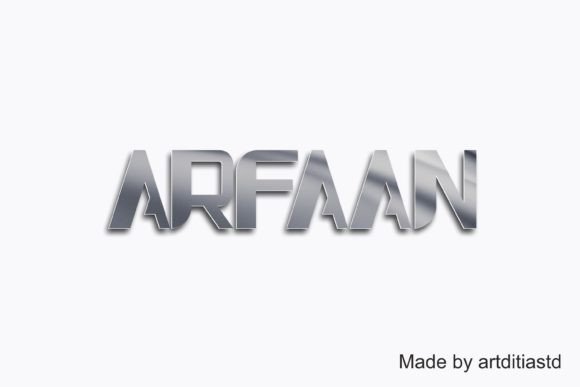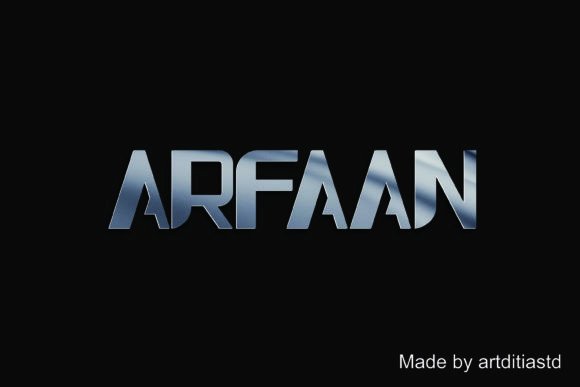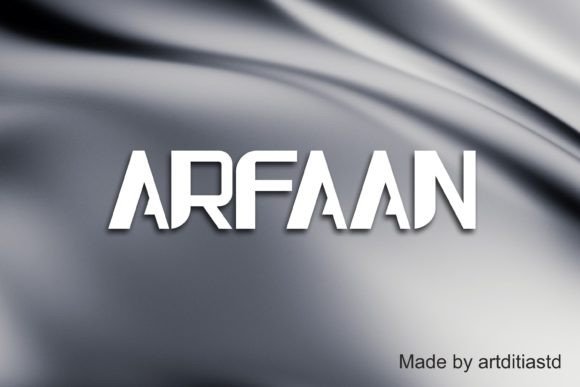
Introducing Arfaan Font: The Ultimate Display Font for Friendly Designs
Are you tired of using the same old fonts for your designs? Look no further! Arfaan Font is here to revolutionize your creative projects with its cute and fun all-caps display style. This font is perfect for designers, crafters, and anyone looking to add a touch of friendliness to their work.
What Makes Arfaan Font Special?
Arfaan Font is designed to convey impeccable friendliness, making it ideal for a wide range of projects. Whether you’re working on crafts, digital design, presentations, or creating greeting cards, this font is sure to become your go-to choice. Its all-caps display style gives it a playful and approachable feel that’s hard to resist.
Arfaan Font’s versatility is one of its standout features. Here are some design projects where this font truly shines:
- Crafts: Add a personal touch to your handmade crafts, such as DIY cards, scrapbooking, or woodwork projects.
- Digital Design: Use Arfaan Font to create engaging social media graphics, blog headers, or website titles that capture your audience’s attention.
- Presentations: Make your presentations more engaging and fun with Arfaan Font. It’s perfect for title slides, headings, or emphasis text.
- Greeting Cards: Create personalized and heartfelt greeting cards for special occasions, such as birthdays, holidays, or thank-you notes.
Why You’ll Love Arfaan Font
So, what makes Arfaan Font a favorite among designers and crafters? Here are a few reasons:
- Unique Style: Arfaan Font’s all-caps display style is both playful and elegant, making it perfect for designs that require a friendly touch.
- Easy to Read: Despite its decorative style, Arfaan Font is surprisingly easy to read, even at smaller sizes.
- Versatile: Use Arfaan Font for a wide range of projects, from digital designs to handmade crafts.
- Fun to Use: Arfaan Font’s playful style makes it enjoyable to work with, adding a creative spark to your designs.
Tips for Using Arfaan Font Effectively
To get the most out of Arfaan Font, here are some tips to keep in mind:
- Pair with Other Fonts: Combine Arfaan Font with other fonts to create visual interest and add depth to your designs.
- Experiment with Colors: Try out different color schemes to find the perfect match for your Arfaan Font designs.
- Play with Sizes: Use Arfaan Font in various sizes to create a visually appealing hierarchy in your designs.
- Add Texture: Consider adding texture or patterns to your Arfaan Font designs to give them an extra creative boost.
| Font Name | Arfaan Font |
| Author | artditiastd |
Arfaan Font is a game-changer for designers and crafters looking to add a touch of friendliness to their work. With its unique all-caps display style, versatility, and ease of use, it’s no wonder that Arfaan Font has the potential to become your favorite go-to font. So, what are you waiting for? Give Arfaan Font a try and take your designs to the next level!